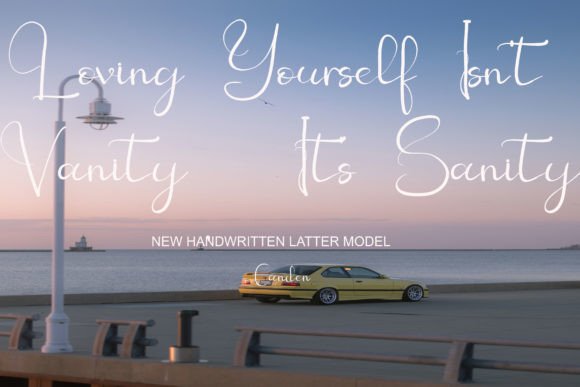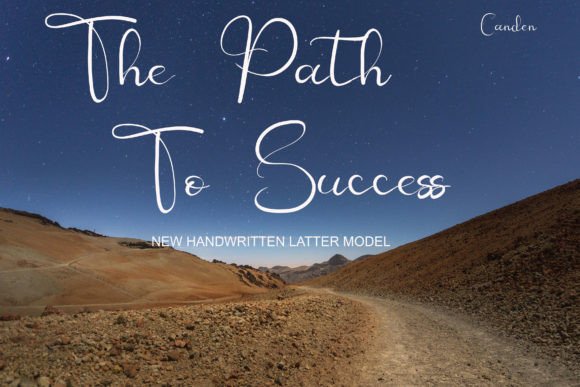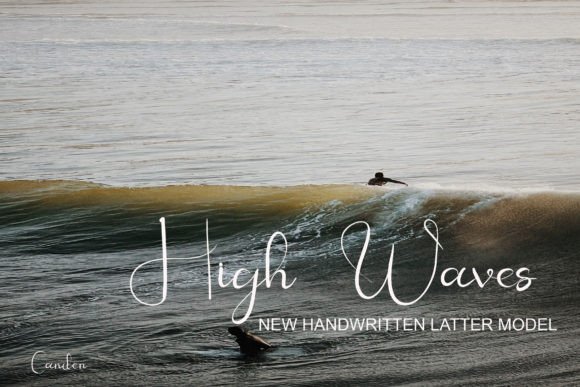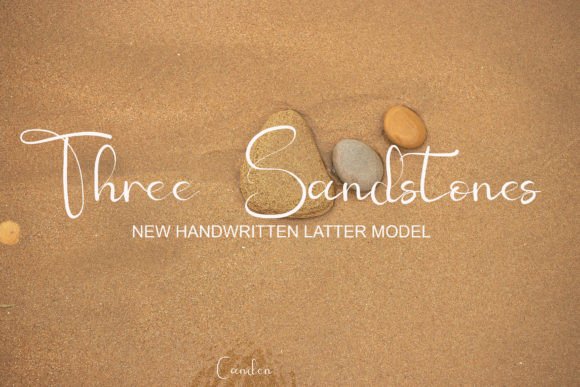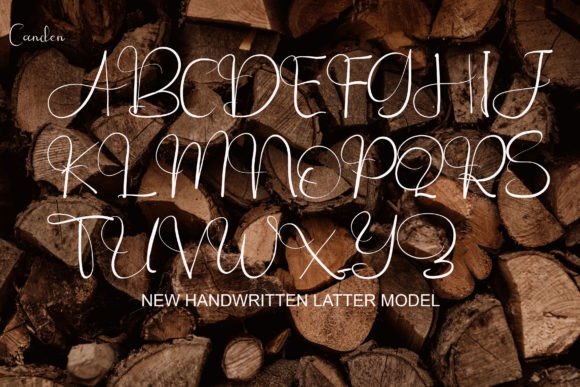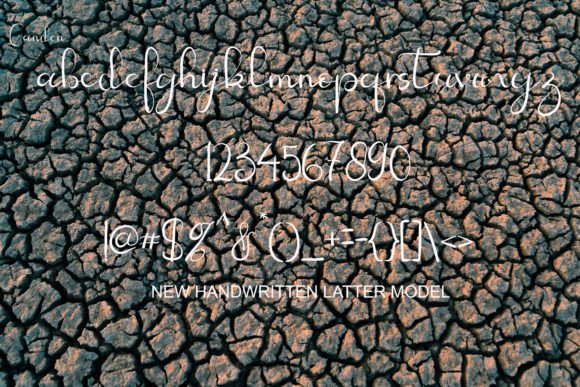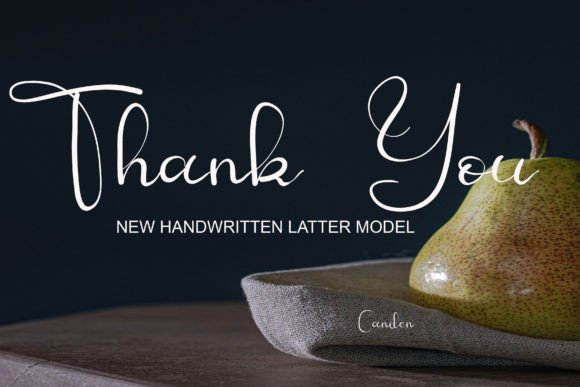
Ahtalak Ghensiti Font
About Ahtalak Ghensiti Font
Ahtalak Ghensiti is a beautiful and delicately crafted handwritten font that carries a unique and enchanting feel, leaving a stunning impact on any design project. This font is more than just a typeface; it serves as a vessel for adding a romantic accent to your creative endeavors, elevating the emotional resonance of your work.
The beauty of Ahtalak Ghensiti lies in its light and graceful strokes, providing a sense of elegance and sophistication to the text. Each character is carefully designed to convey a distinctive aesthetic that is both captivating and memorable.
As a handwritten font, Ahtalak Ghensiti brings a personal touch to your projects. Its unique feel sets it apart, making it a perfect choice for designs that aim to evoke a romantic and intimate atmosphere. Whether used in wedding invitations, love notes, or any project that requires a touch of romance, Ahtalak Ghensiti adds a special charm.
The stunning impact of Ahtalak Ghensiti is evident in its ability to capture attention and create a lasting impression. Its uniqueness ensures that your designs stand out, making it a valuable asset for any creative endeavor where you want to leave an indelible mark.
In summary, Ahtalak Ghensiti is not just a font; it’s a beautiful and light design tool that enhances the romantic essence of your projects. With its unique feel and stunning impact, this font becomes a key element in creating designs that resonate emotionally and aesthetically. Let Ahtalak Ghensiti infuse your work with a touch of romance and timeless elegance.